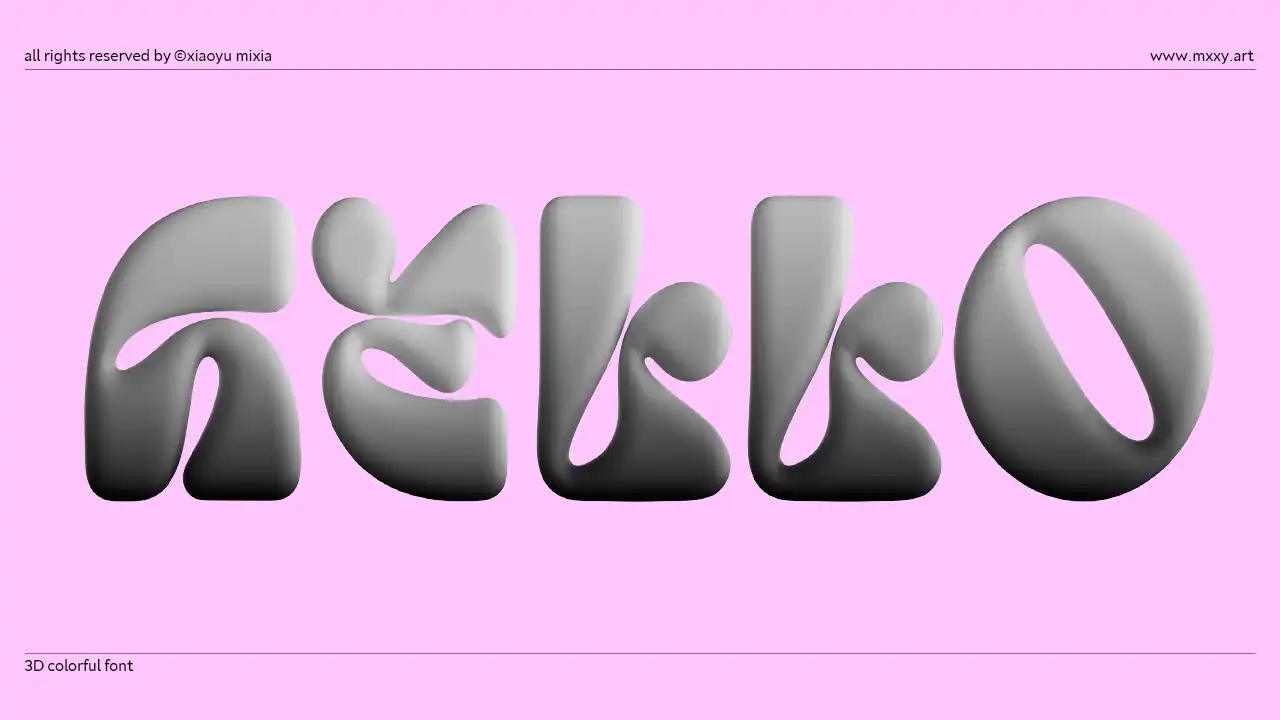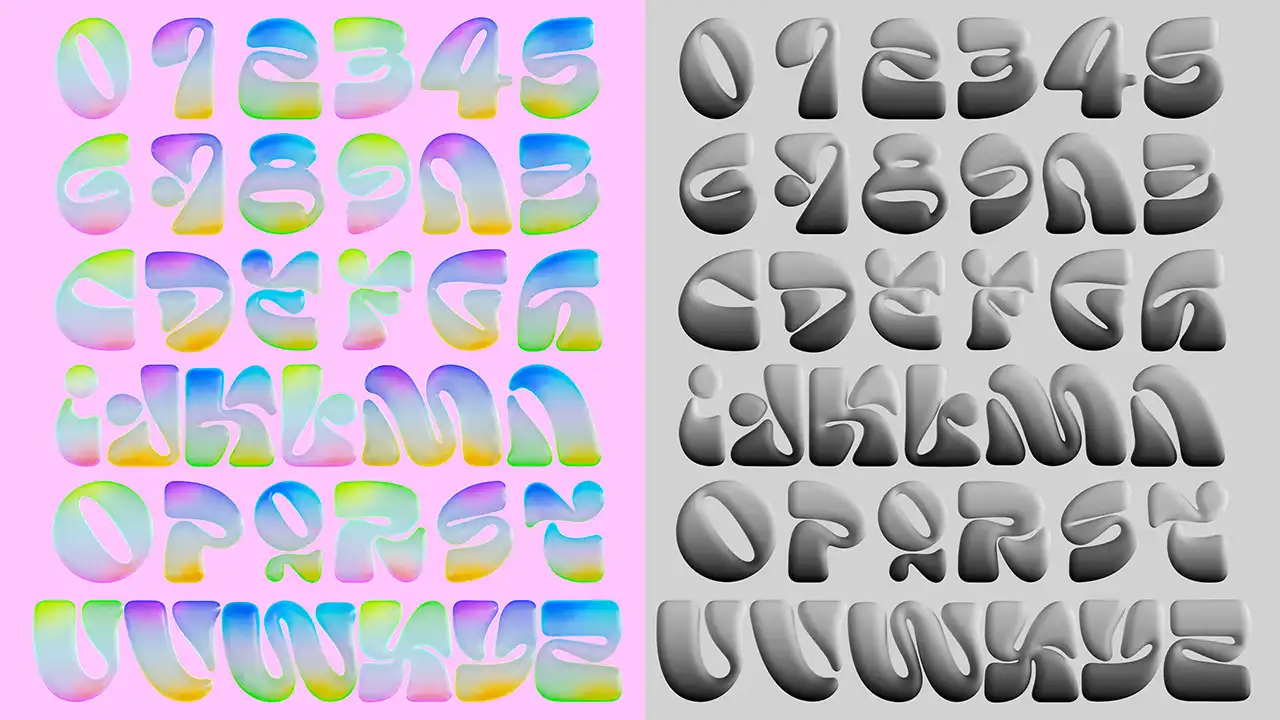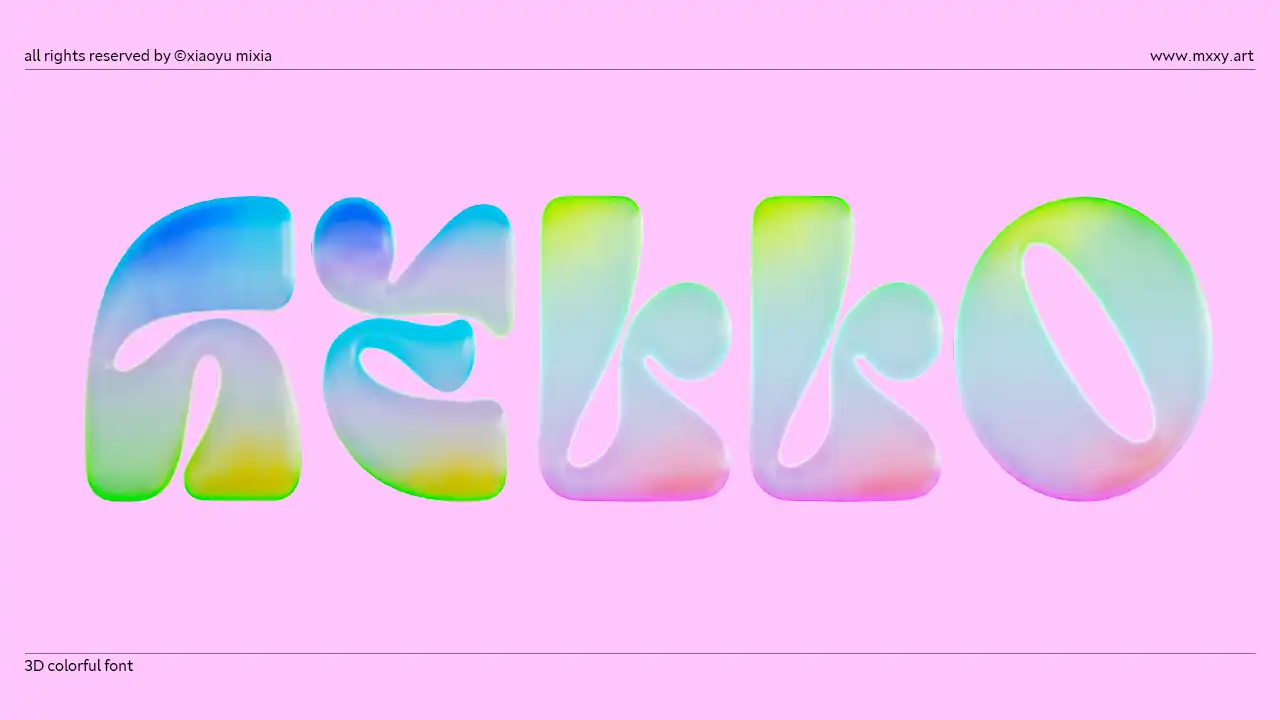
Are you ready to add a splash of creativity to your designs? The 3D Colorful Experimental Font is a vibrant digital download that gives you instant access to a world of colorful typography! 🌈💫 With its unique three-dimensional style, this font is perfect for any project that needs a modern touch.
This innovative font features a playful mix of colors and textures, making it a fantastic choice for graphic designers, artists, and anyone looking to make a statement. The 3D Colorful Experimental Font includes 26 letters and 10 numbers, all designed with a focus on artistic flair and versatility. ✨
- Two Font Styles: Choose between a sleek black and white texture or a stunning colorful glass effect to suit your design needs!
- Versatile Design: Ideal for posters, social media graphics, and any creative project that demands eye-catching typography.
- 26 letters (A-Z)
- 10 numbers (0-9)
- Two styles: black and white texture, colorful glass
This font is perfect for:
- Graphic designers looking for unique typography
- Artists and illustrators wanting to add flair to their projects
- Marketers seeking eye-catching visuals for campaigns
- Anyone who loves to experiment with modern font designs!